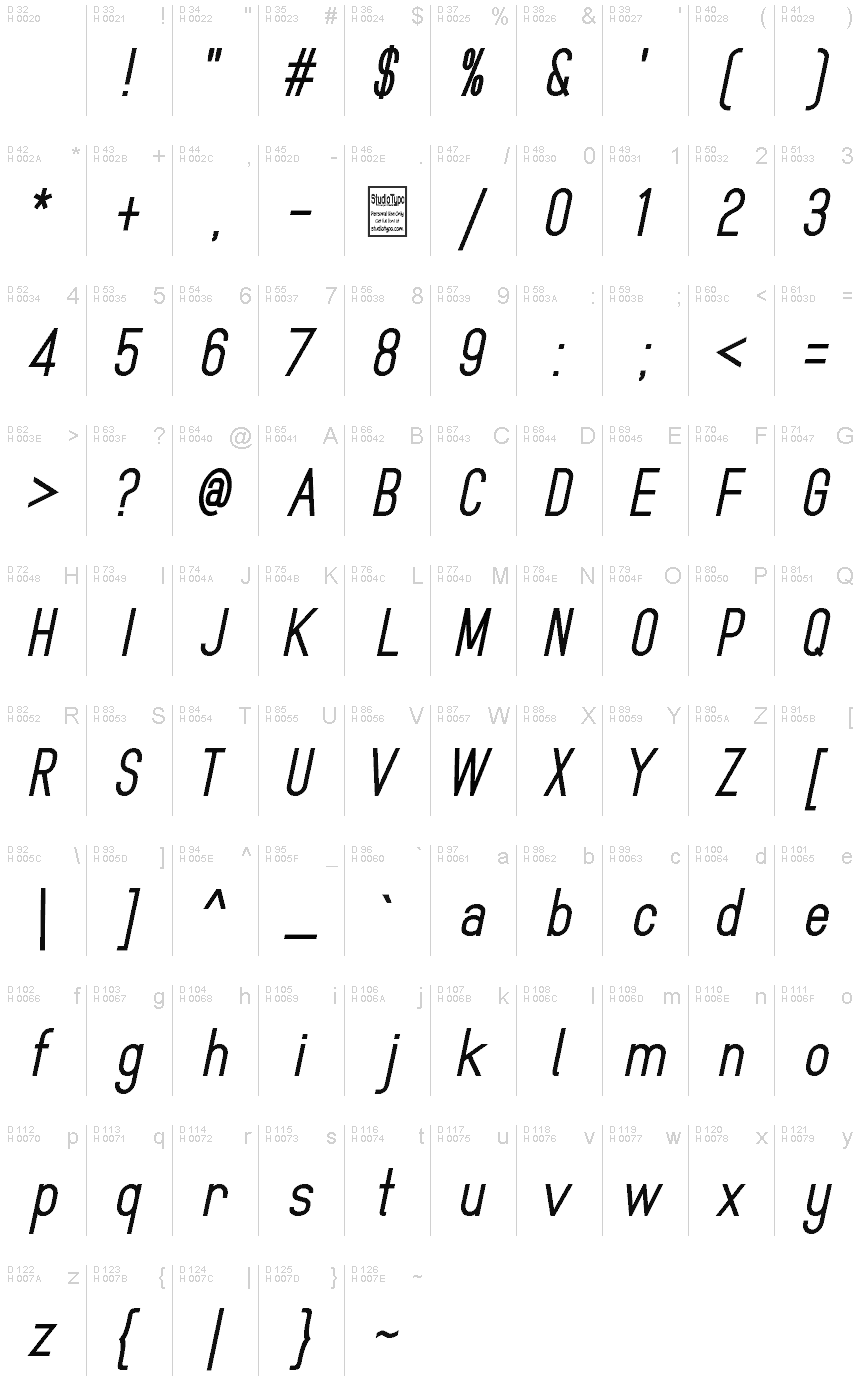
MindBlue Bold Italic
MindBlue by StudioTypo is a bold, striking sans-serif font that exudes a powerful, contemporary aesthetic. Its condensed, italic design lends a sleek, dynamic quality, making it well-suited for bold headlines, impactful branding, and stylish editorial layouts.
The bold strokes and angular terminals convey a sense of authority and confidence, while the rounded edges maintain a sense of approachability. MindBlue's versatility allows it to seamlessly transition between digital and print applications, from eye-catching web banners to commanding book covers.